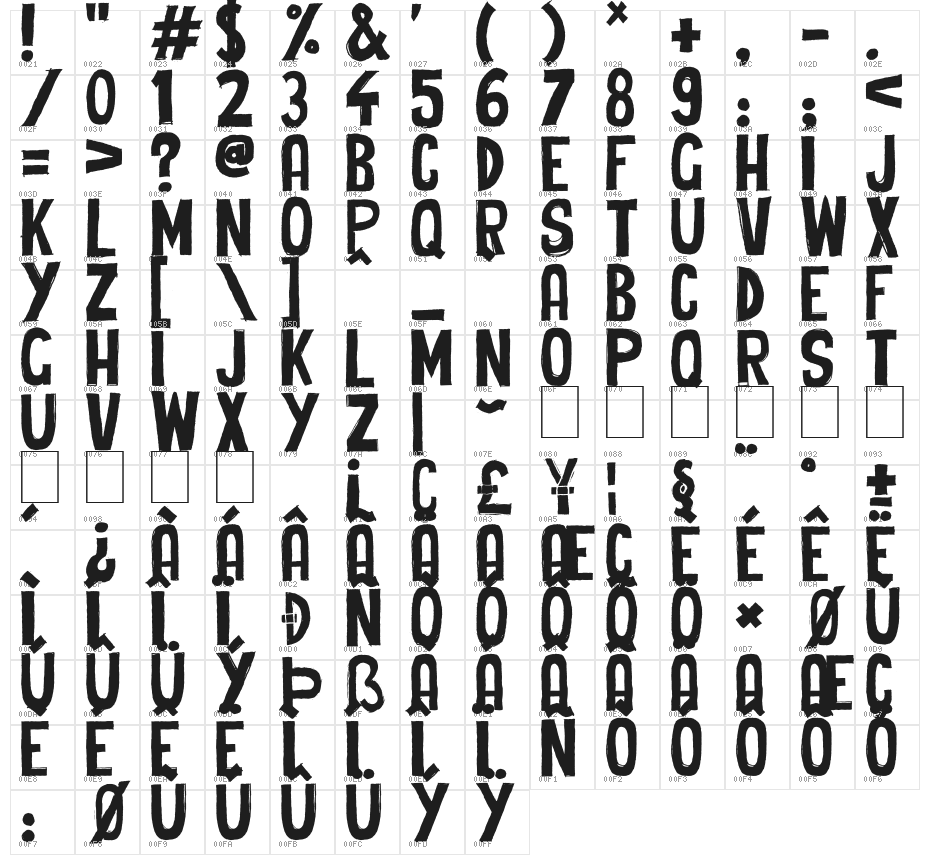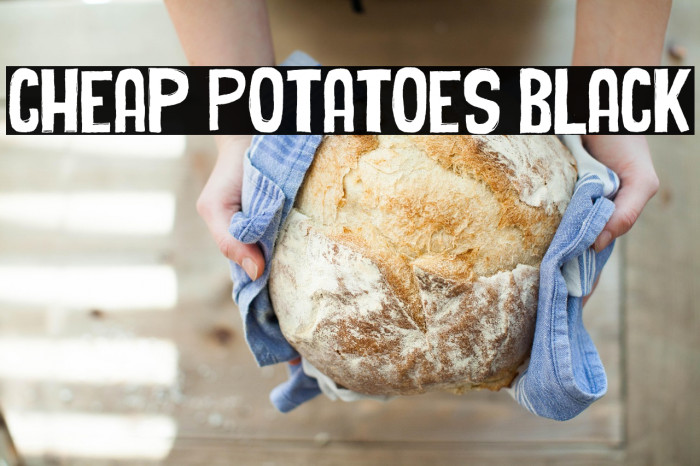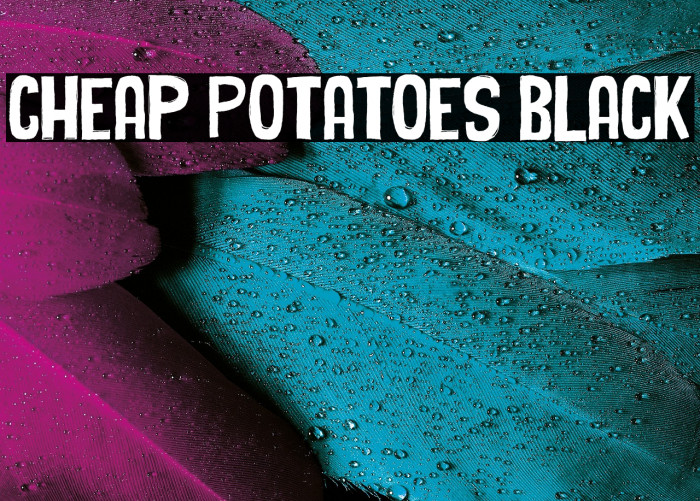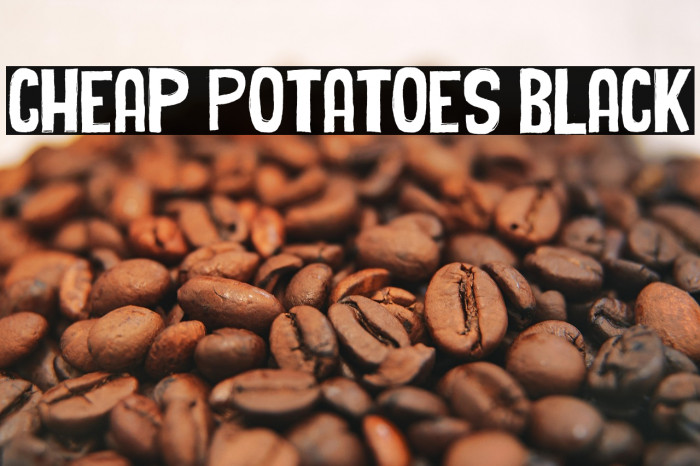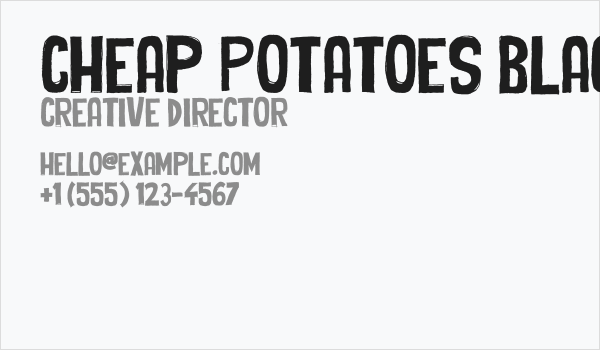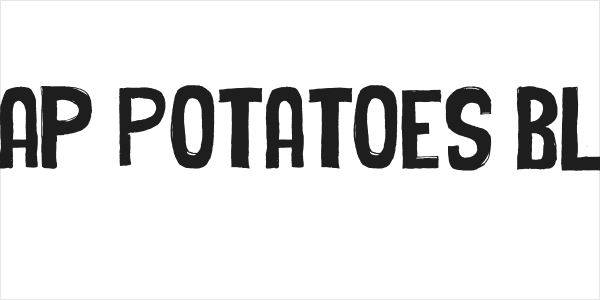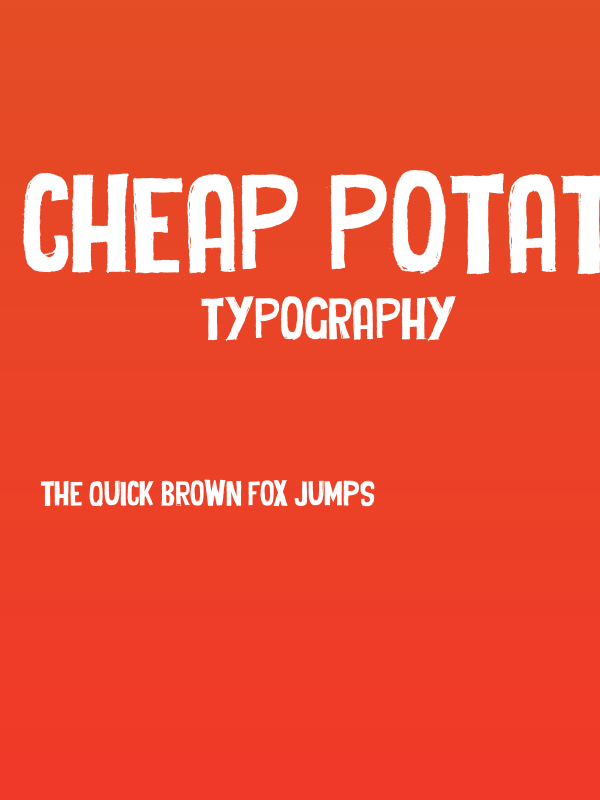
Cheap Potatoes Black Font
Cheap Potatoes Black Description
This font features a bold and expressive style with a hand-painted appearance. The letters are thick and uneven, giving them a dynamic and energetic feel. The uppercase and lowercase letters maintain a consistent weight, while the numbers and special characters follow the same bold aesthetic. The strokes are rough and textured, adding a raw and artistic touch. This font is ideal for projects that require a strong visual impact and a creative flair.